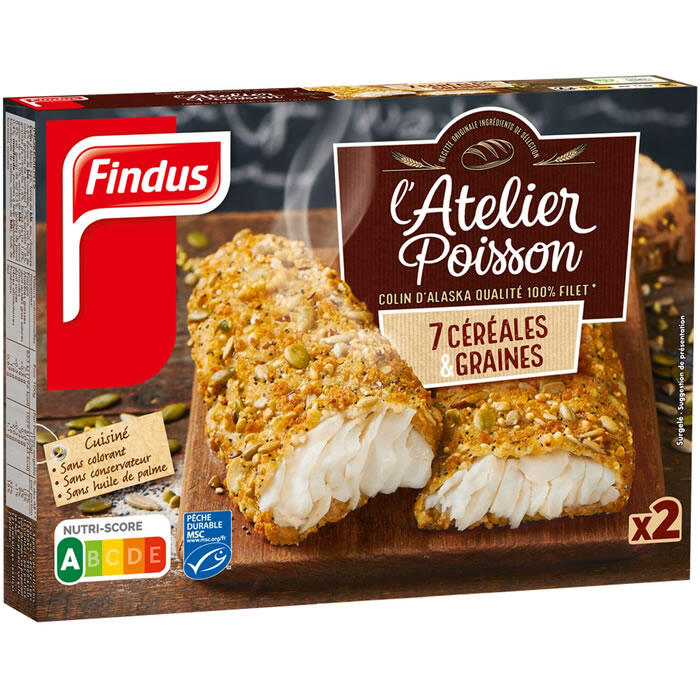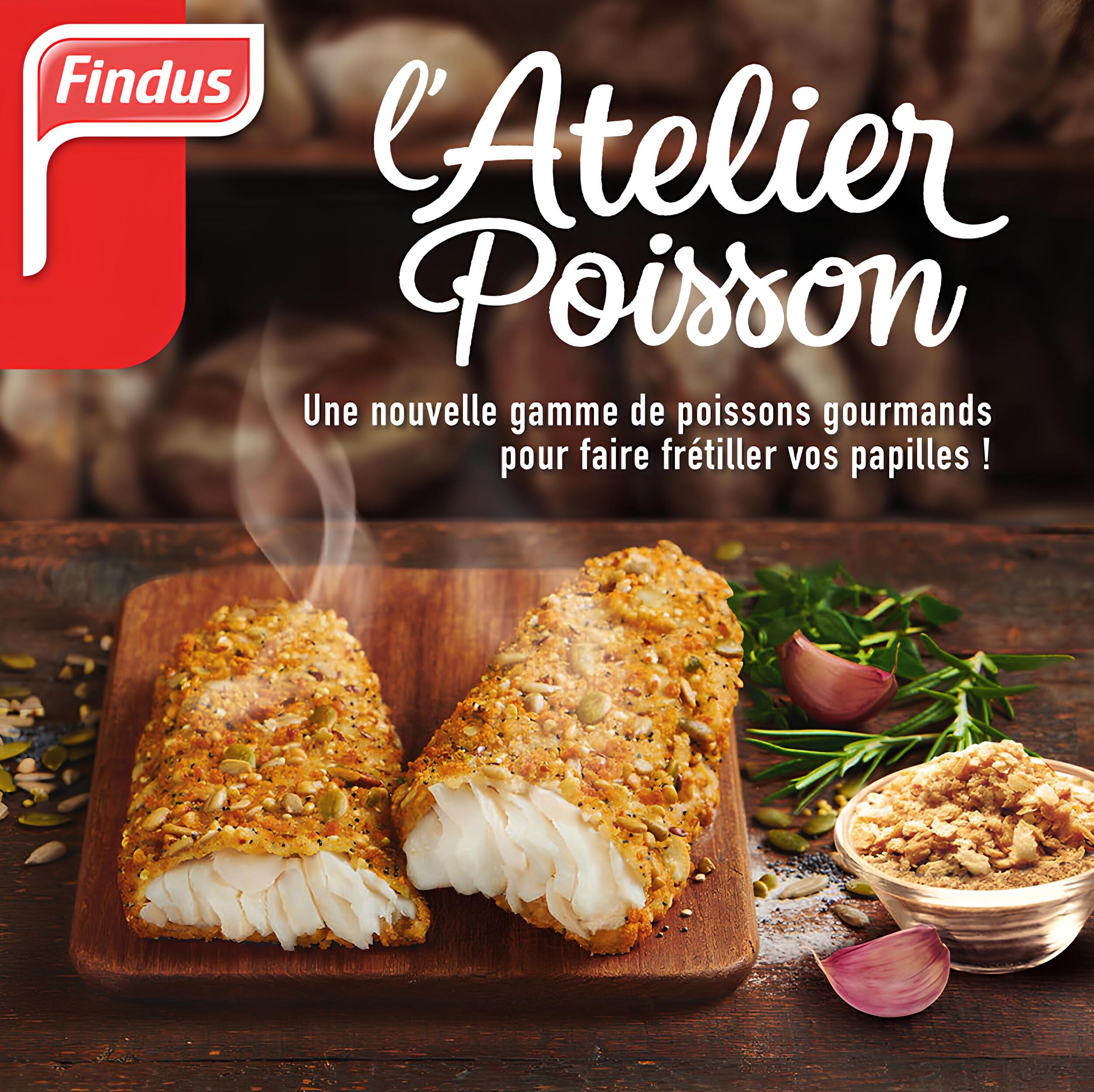
Identifying the script used for “L’Atelier Poisson” on Findus’s breaded fish packaging
I’d like help identifying the script used for “L’Atelier Poisson” on the Findus fish product shown in the photos attached. Findus is a well‑known frozen‑food brand sold across Europe. Earlier this decade they introduced a new line of breaded fish fillets called L’Atelier Poisson (the box pictured here is the “7 céréales & graines” variety). I bought this product from a French supermarket in June 2025.
Context and source
• Brand: Findus (European frozen food company owned by Nomad Foods). The packaging bears the red Findus logo and an image of breaded Alaska pollock fillets.
• Product: L’Atelier Poisson 7 céréales & graines (breaded Alaska pollock fillets with seven cereals and seeds). The tagline below the script reads “Colin d’Alaska qualité 100 % filet” and lists features like “sans colorant, sans conservateur”.
• Approximate date: This design appears to date from the early‑to‑mid 2020s and is still in use today.
• Images: I’ve attached two images—the promotional artwork and the product box—to show the lettering in context.
The script has an informal, hand‑written feel, with looping ascenders, a slight slant and varying stroke widths. It looks like a brush script or chalkboard lettering (the artwork behind it suggests a chalkboard). I’ve checked some common scripts such as Pacifico, Lobster, Milkshake and Great Vibes, but none seem to match exactly.